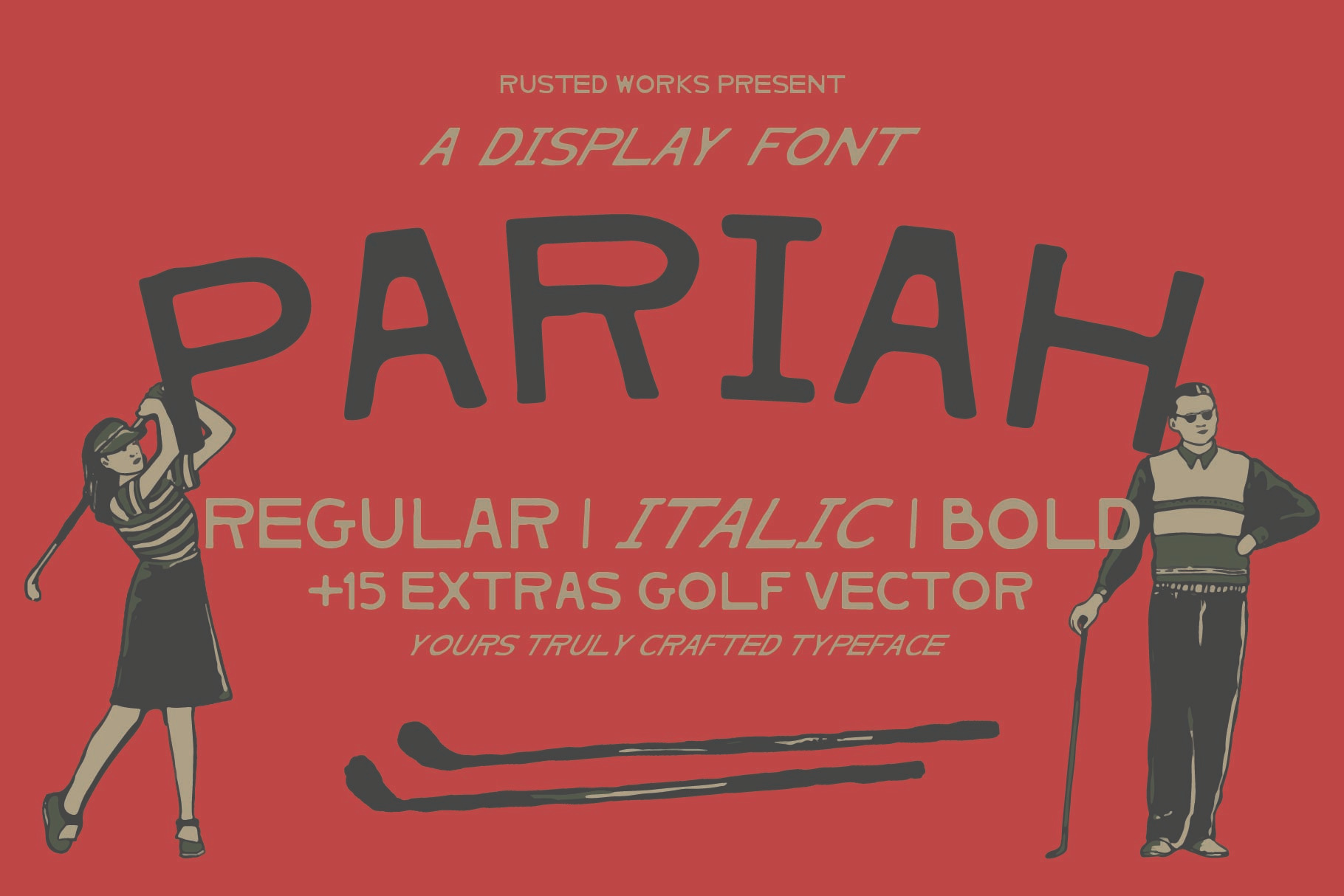
Pariah - Retro Display Typeface
PARIAH - an display vintage retro sans serif font [With Extras +15 Vector Vintage Golf Illustration]
Truly Hand-drawn crafted Quality
comes with 3 MODES of -Regular -Italic -Bold
This font fit for designer who appreciate the nostalgic vibes that have an output to
- Vintage Posters
- Branding
- Retro Logo
- Cover Book, etc.
With its playful yet confident character, PARIAH delivers a strong and captivating aesthetic to any project.